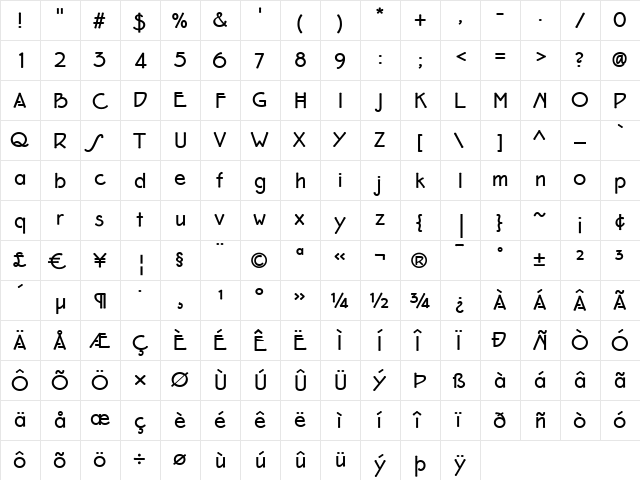
P22Eaglefeather Bold Font Preview
P22Eaglefeather Bold
Design Context for P22Eaglefeather Typeface
P22Eaglefeather takes a measured approach to typography — its balanced proportions and neutral character make it a reliable workhorse for both digital and print work. Its bold stroke weight gives it real presence on the page.